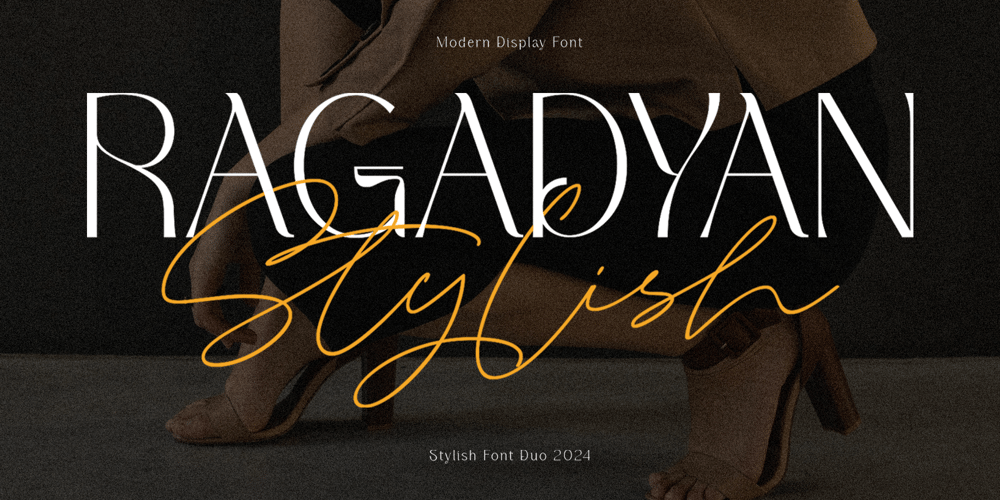
Ragadyan
Ragadyan font
Ragadyan Font Family was designed by Virgiawan Listanto and published by Inviline. Ragadyan contains 2 styles and family package options. Discover a trendy Font Duo combining a sleek script with a modern sans-serif. This stylish pair is perfect for logos, invitations, and branding, offering a balanced look that adds sophistication and versatility to your creative projects